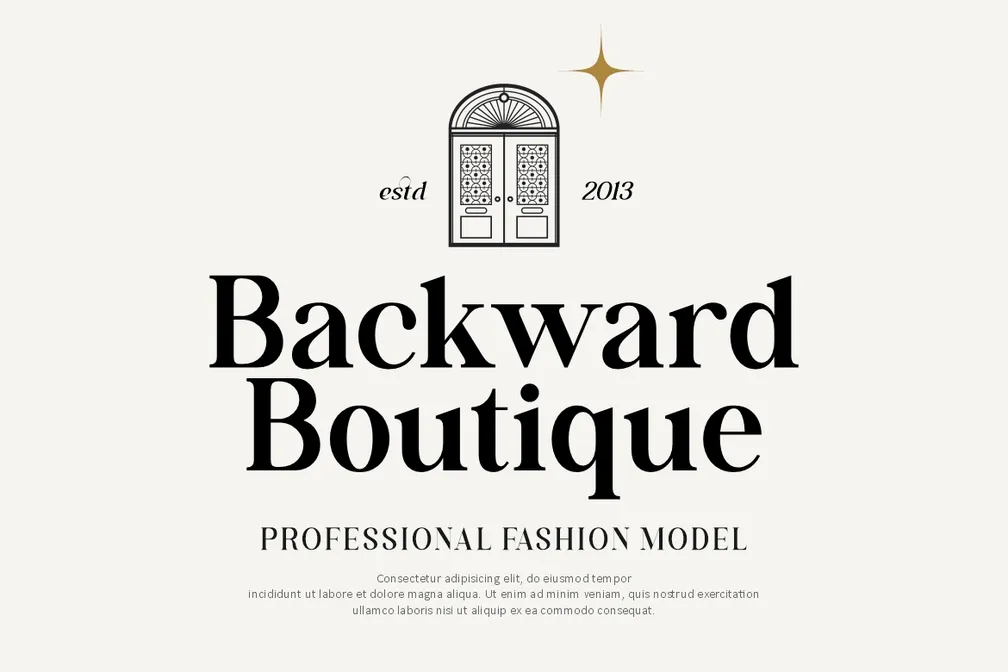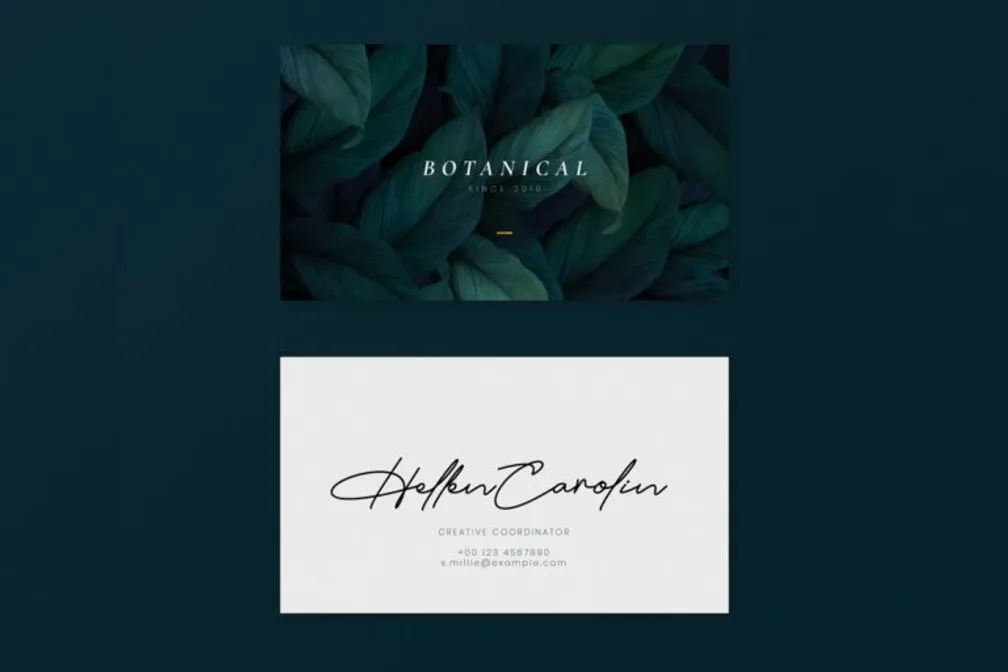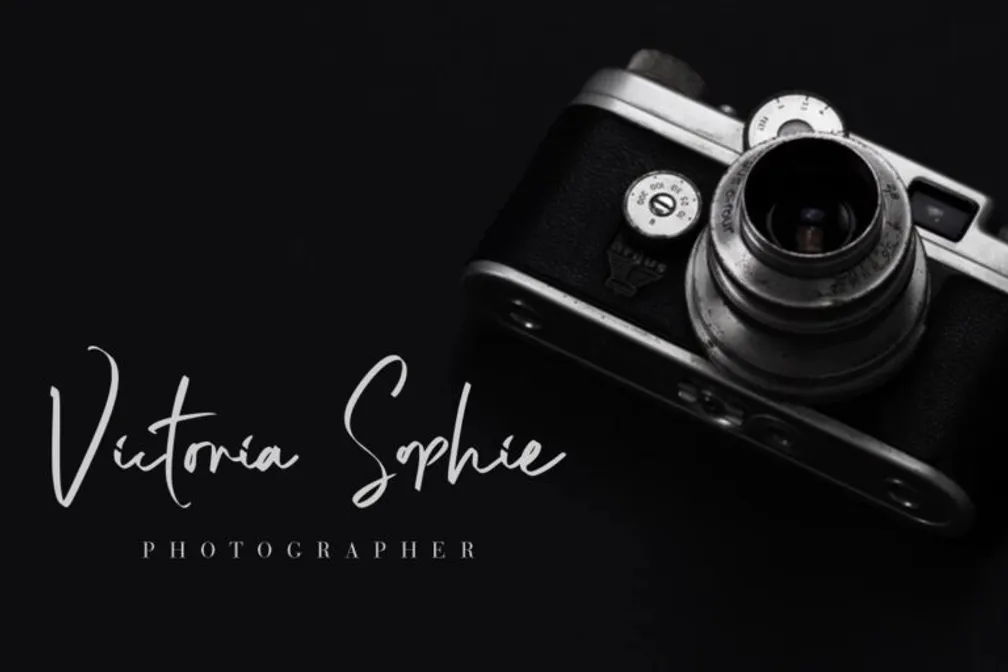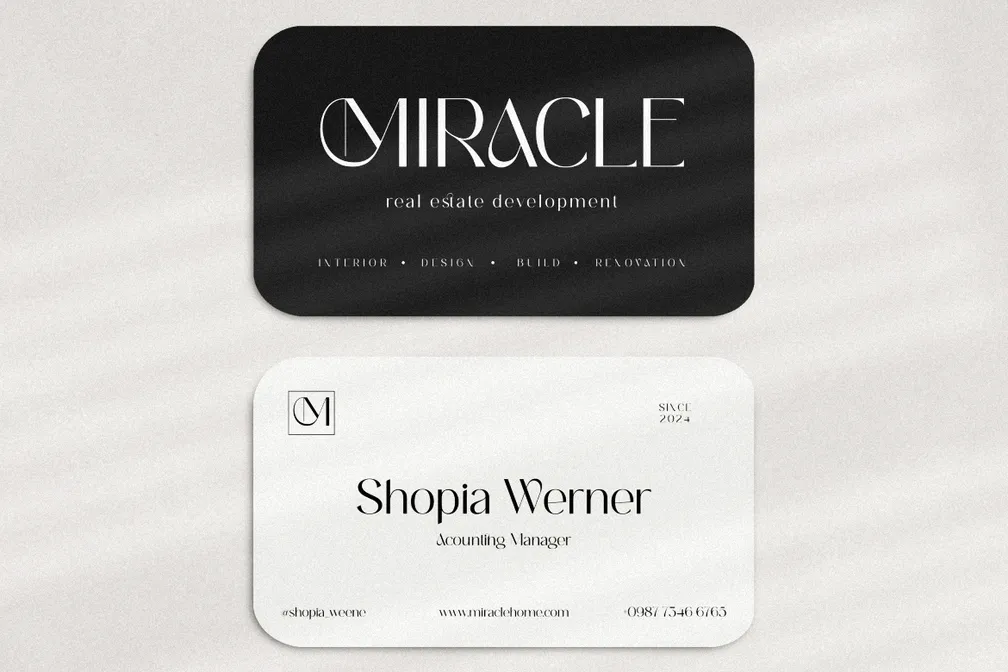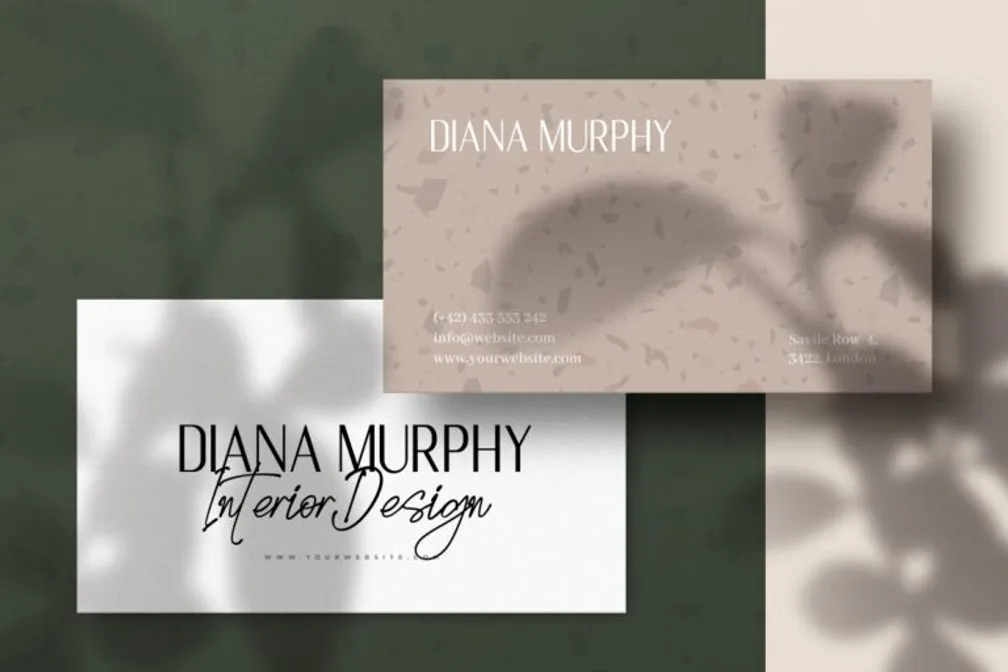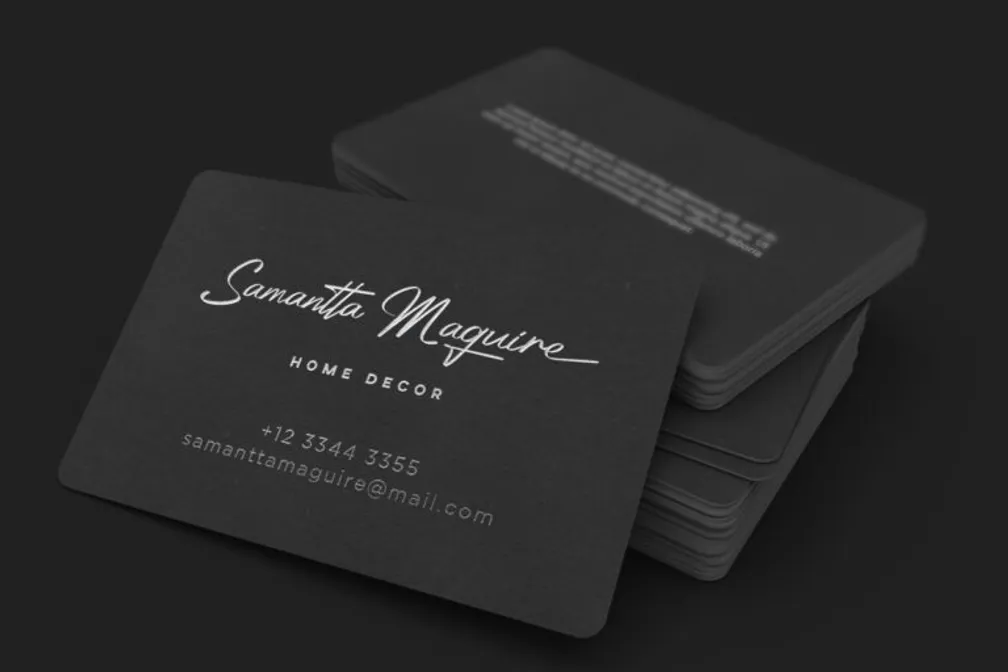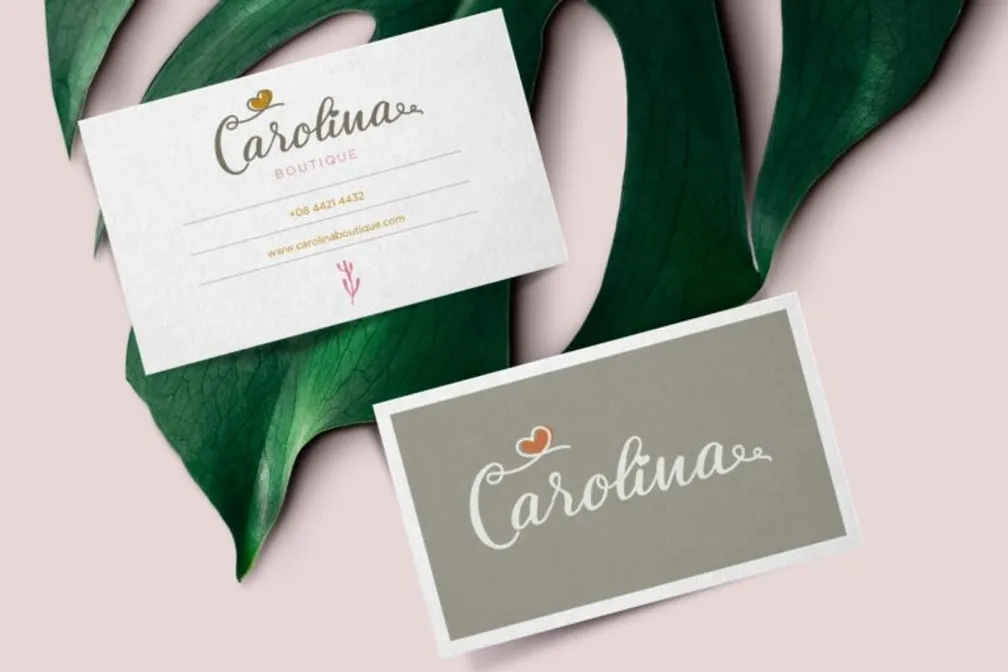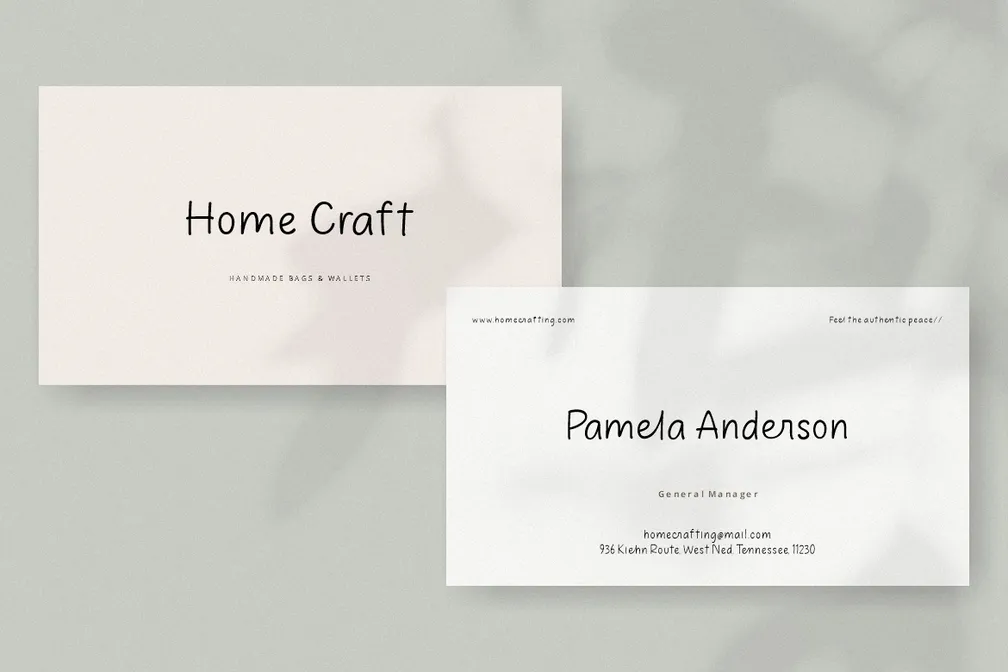
20 Best Fonts for Business Cards That Leave a Lasting Impression
Selecting the best fonts for business cards is not just a design decision. It is a form of professional communication. Typography can subtly convey competence, credibility, and attention to detail even before a conversation begins.
Research in consumer psychology shows that typeface style strongly influences how trustworthy and professional a person or brand appears within the first few seconds of exposure. Therefore, this article aims to help you choose the most suitable business card fonts across different styles while maintaining both clarity and aesthetic appeal.
Key Takeaways:
- The right font communicates professionalism, credibility, and personality instantly.
- Choose fonts that match your brand, ensure readability, and create visual harmony.
- Elegant and well-designed fonts make your business cards memorable and impactful.
Choose a Strong Professional Identity with the Right Fonts
Save your time scrolling! Below are 20 best fonts for high-impact business cards. Each option helps you achieve an aesthetic look while maintaining a polished and professional impression.
1. Latest Perfectly
Blending traditional charm with modern style, this serif typeface works exceptionally well. It keeps contact information readable while adding a sophisticated tone, helping your brand feel polished and trustworthy at first glance.
2. Evenings
Evenings blends classic charm with contemporary style. It evokes timeless beauty without feeling outdated, giving your professional identity a polished and up-to-date impression.
3. Vailery
Built around romantic inspiration, it combines uniqueness with luxury. On a business card, Vailery presents names and titles beautifully, creating a refined and memorable first impression.
4. Romla
Placing among the best fonts for business cards, Romla comes with its modern yet classy look. The ballpoint-inspired strokes create a warm, personal impression on business cards while still presenting a polished and credible identity.
5. Sonia
Sonia is a modern display serif font that blends classy elegance with a relaxed feel. It presents names and titles clearly on business cards while maintaining a friendly and approachable tone.
6. Beauty Story
Beauty Story creates a charming and distinctive look on business cards. It keeps the design readable while adding a creative and welcoming impression, perfect for professionals in beauty, fashion, or creative fields.
7. Cathelia
With its smooth handwritten strokes and modern balance, Cathelia brings warmth and charm to business cards. It makes key details stand out while maintaining a tidy and modern look that feels both inviting and credible.
8. Bali Indonesia
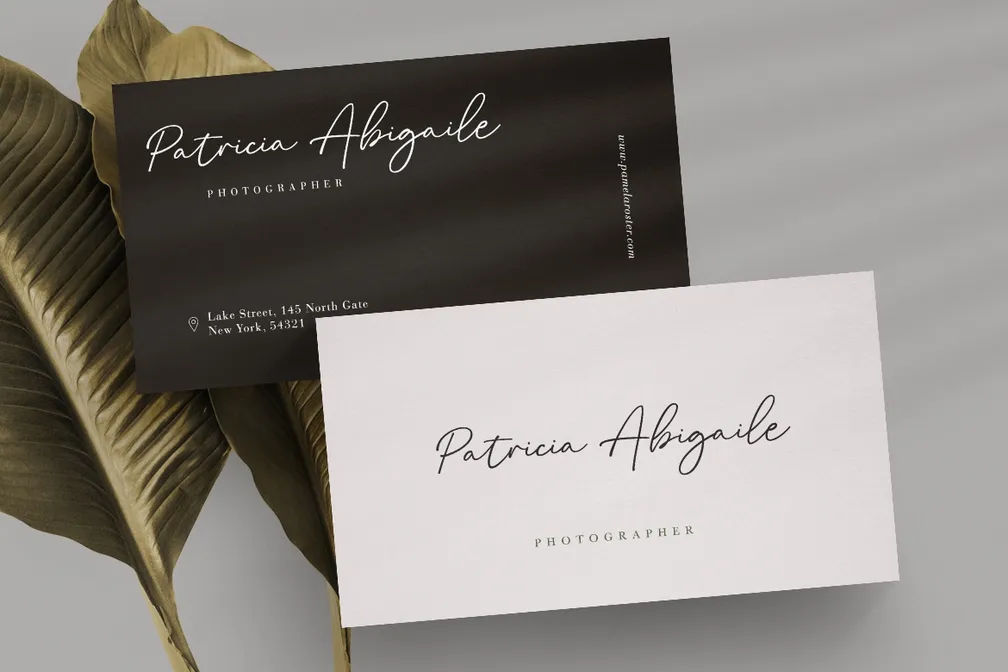
Bali Indonesia’s flowing calligraphy, adds a refined character to business cards. Its elegant strokes keep the layout polished and readable, which is why it is often considered among the best fonts for business cards for sophisticated branding.
9. Natalie Photograph
Natalie Photograph Font beautifully highlights your name with a warm, personal touch while keeping the layout clean and easy to read, all enhanced by its soft elegance.
10. Austin Capittal
Perfect for business cards, Austin Capittal adds a personal touch without sacrificing readability. Its natural, stylish flow creates a clean, elegant, and memorable impression.
11. Ballomont
Ballomont pairs luxurious boldness with a playful, distinctive touch. Its refined lettering transforms business cards into standout pieces that feel both stylish and professionally impressive.
12. Belgia
Characterized by smooth, rounded edges, this font brings boldness without losing refinement. It’s one of the best fonts for business cards, perfect for designs that need to feel both professional and stylish.
13. Megarin
Megarin Font, a classy serif with a modern twist, gives any design a unique flair. Blending romantic inspiration with modern luxury, it adds elegance and personality to business cards, helping your brand become instantly memorable.
14. Berlys
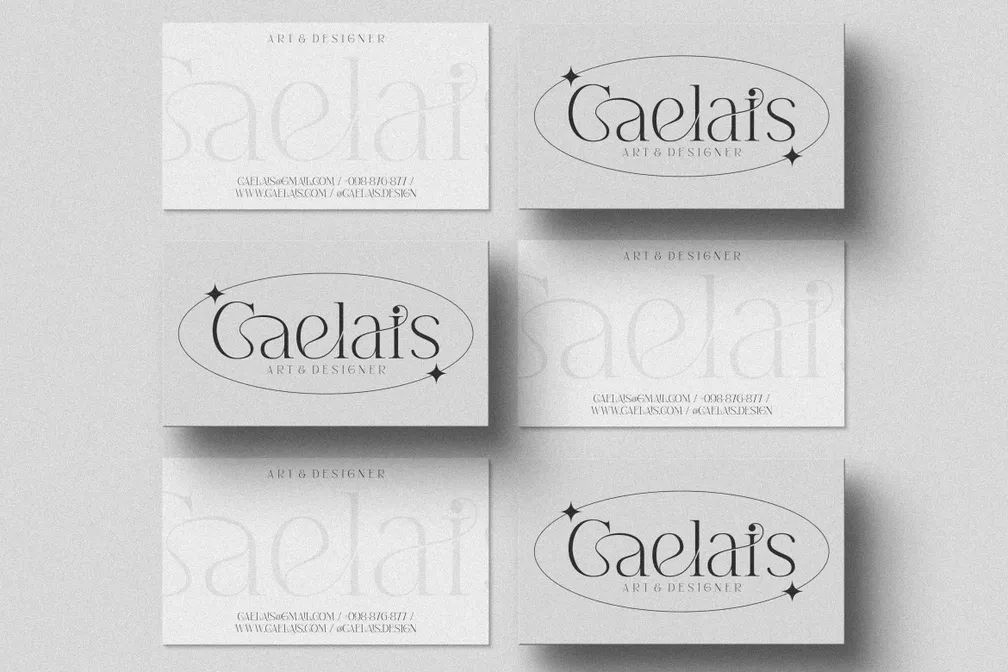
Berlys Serif Font draws inspiration from romantic concepts and turns them into a luxurious, one-of-a-kind style that elevates any business card design.
15. Golden Stanbury
This rare blend of modern clarity and refined style, paired with its monoline ballpoint strokes, brings a stylish and memorable touch to business card designs.
16. Platinum Signature
Looking for a clean, elegant handwriting font? Try Platinum Signature! True to its name, this is one of the best fonts for business cards, giving a stylish signature look that feels personal and professional.
17. Femina
Let your designs shine with Femina! This delightful script font combines fun, romance, and authenticity, giving your business a charming and inspired vibe.
18. Marllena
With its cute, modern design and elegant touches, Marllena Font keeps your text stylish and clear without ever compromising readability.
19. Love Line
Masterfully crafted to be a true favorite, Love Line Font elevates every creative idea. Add this elegant calligraphy style to your business cards for a sophisticated and memorable touch.
20. Beacon
Beacon Aesthetic is a modern display serif that blends elegance with a hint of romance. Its luxurious and distinctive design makes business cards look fabulous, refined, and memorable.
Also Read: Playful Fonts: 15 Best Options and When to Use Them
Leave a Lasting Impression with Professional Typography
Choosing the best fonts for business cards is more than just a design choice; it’s a subtle way to communicate professionalism, credibility, and personality at a glance. Typography shapes first impressions, and the right choice can instantly elevate how your brand is perceived.
When considering how to choose a font for business card to make it look professional, focus on clarity, balance, and alignment with your brand identity. A well-matched typeface ensures your card feels cohesive and refined.